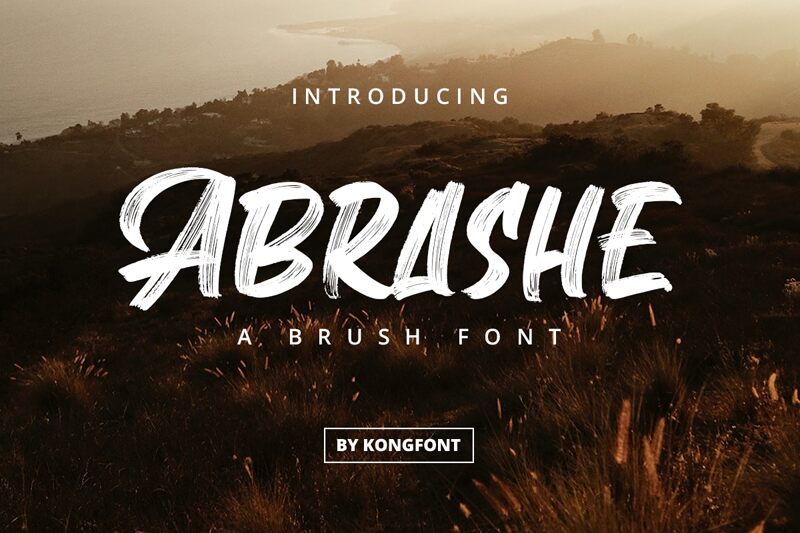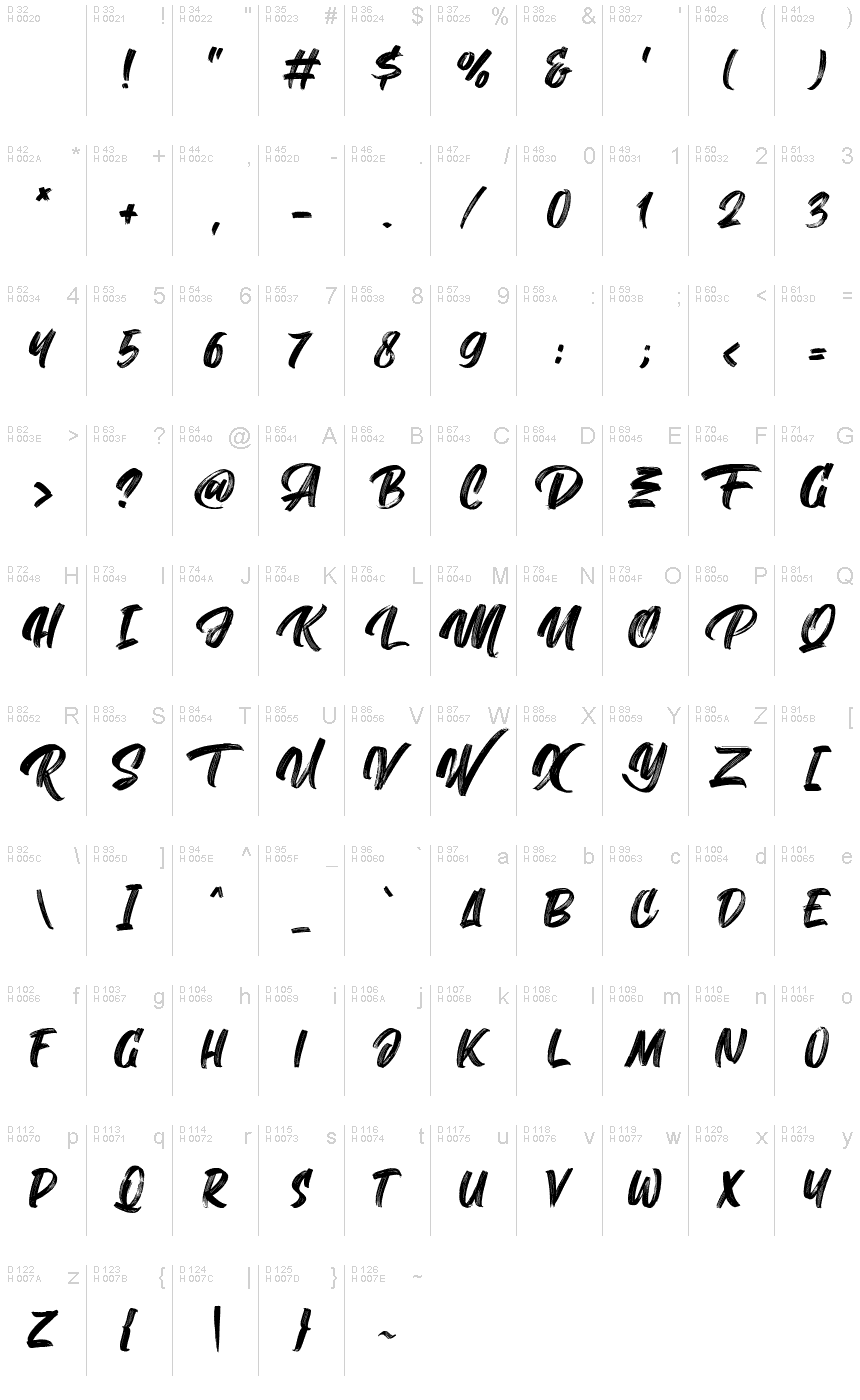
Abrashe
Abrashe, the bold brush font by Kong Font, is perfect for projects that need a touch of edginess and creativity. Its thick strokes and dynamic lines create a bold statement, making it ideal for eye-catching headlines and attention-grabbing logos. The brush style of Abrashe gives it a handmade feel, perfect for designs that require an organic or DIY aesthetic. Abrashe is also suitable for modern calligraphy or typographic art. This versatile typeface can be used in various design projects such as branding, packaging, posters, product labels, and even social media graphics. Add some character to your project with Abrashe!